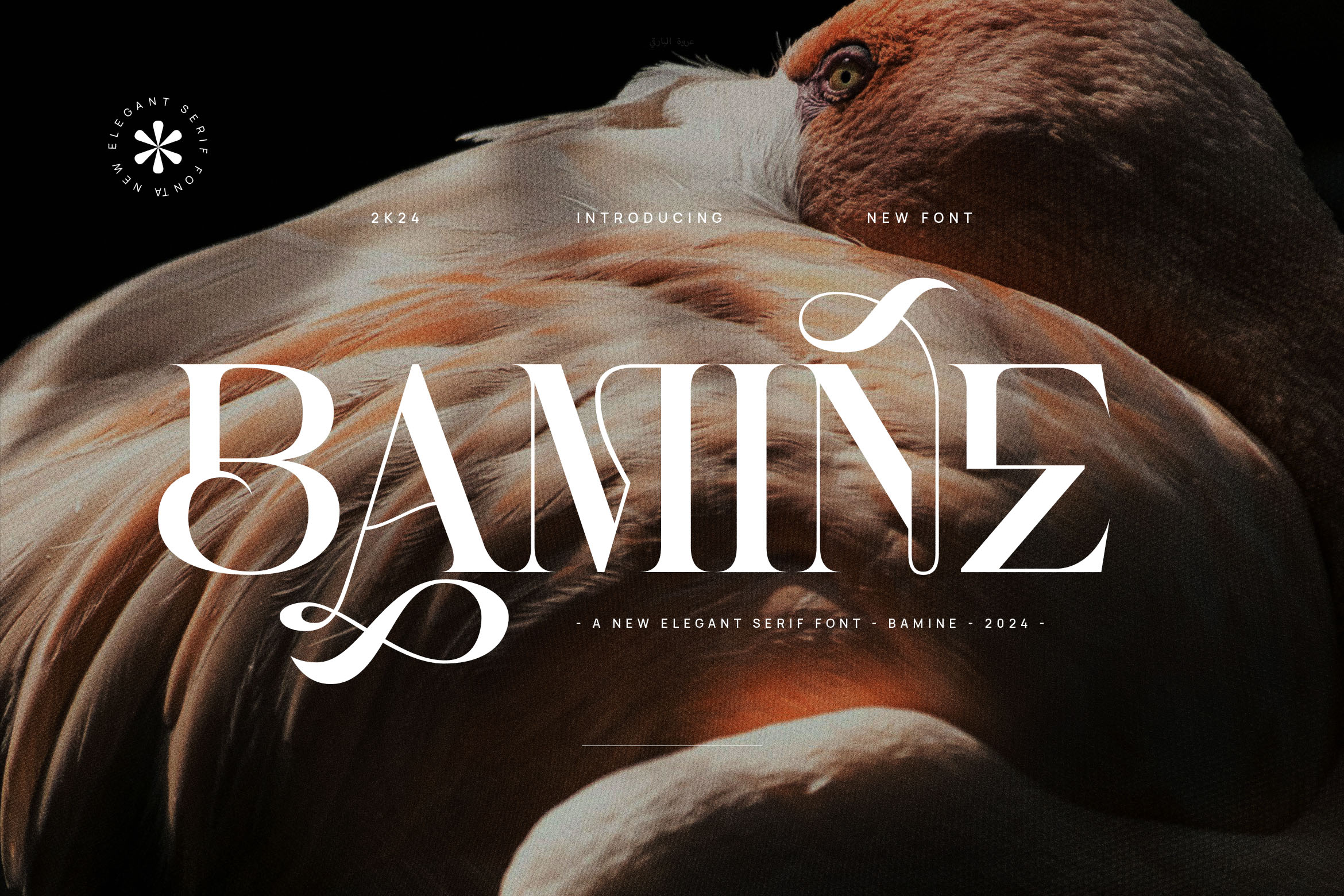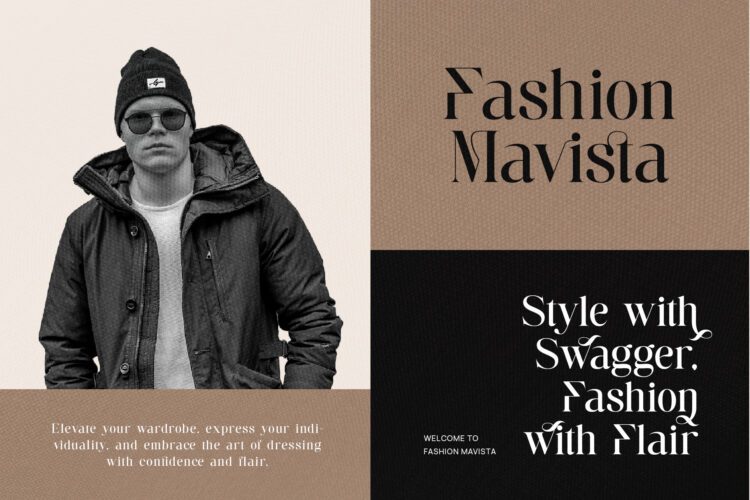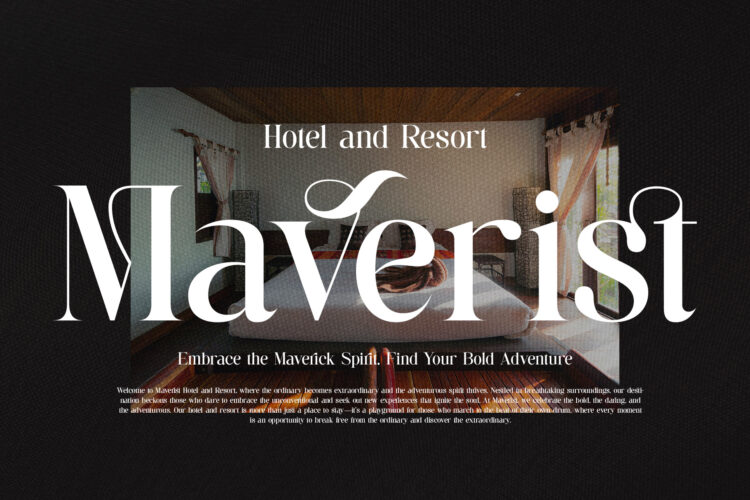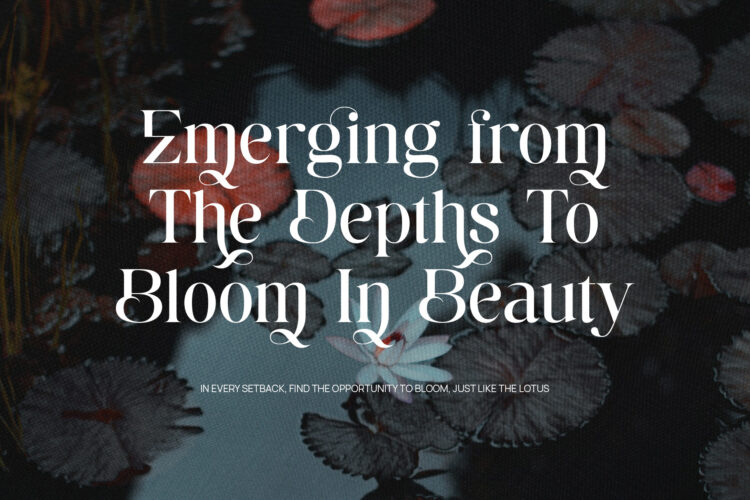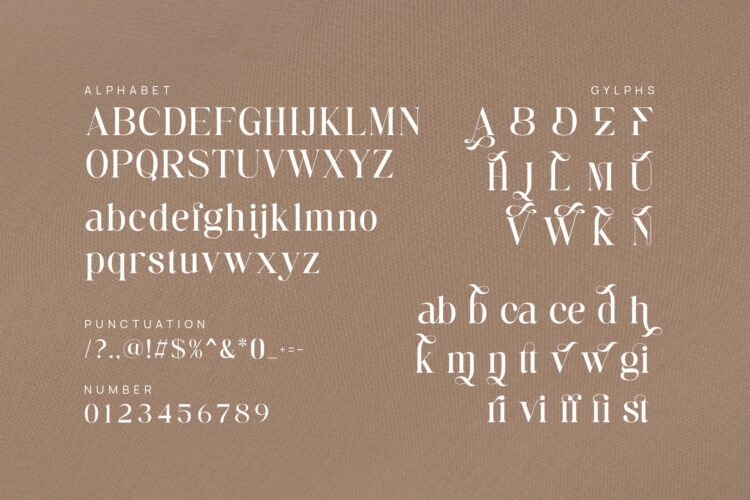
Introducing our new Bamine, modern serif font with elegant style this is perfect for branding, logos, invitation, magazines, product packaging and more.
Bamine – Elegant & Stylish Serif